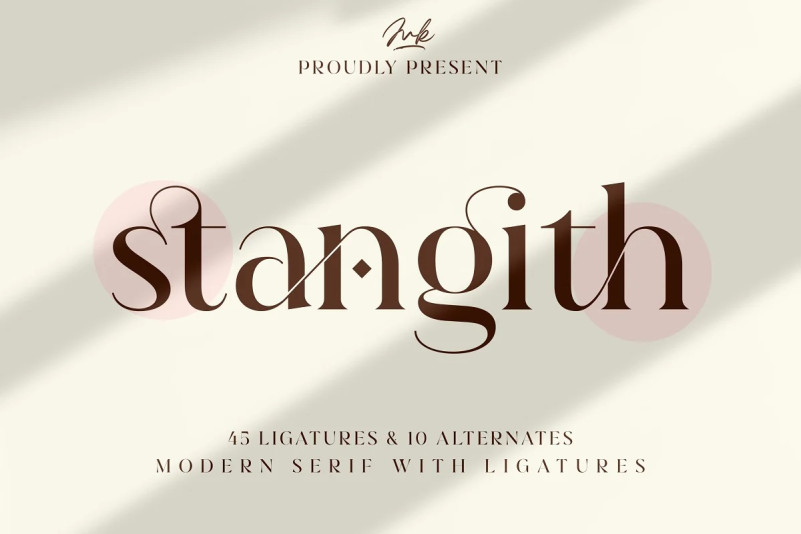
Stangith Font
Stangith Font is an elegant, unique font that uses ligatures to smoothly link letters. Perfect for adding a unique twist to word-mark logos, monograms or pull quotes. stangith has 45 ligatures and 10 Alternates as well as numbers and punctuation making it super fantastic.Ligature can be turned off if required standard writing needs.